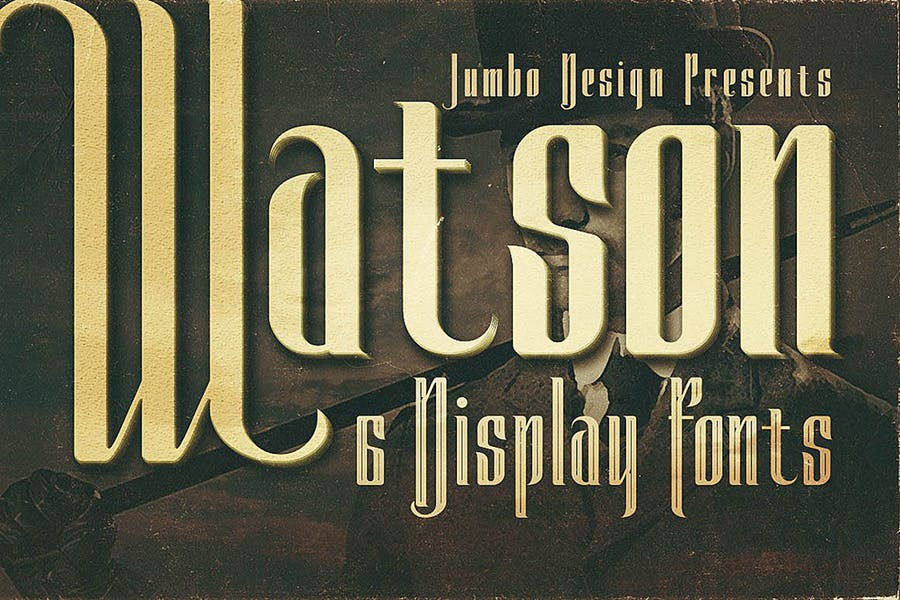
Watson - Vintage Display Font
Watson - Vintage Display Font is perfect for detective mystery branding, vintage investigation logos, classic crime fiction covers, retro detective agency signage, mystery theater posters, vintage police department materials, classic noir film titles, investigative journalism publications, vintage law firm identity, classic mystery game graphics, detective story campaigns, and intriguing storytelling applications.
Watson - Vintage Display Font is exciting because it captures the intellectual elegance and deductive brilliance of classic detective stories with sophisticated letterforms that seem etched by candlelight in Victorian study rooms, perfectly embodying the analytical precision and timeless appeal of legendary detective work and mystery solving.
The Watson - Vintage Display Font family includes investigative variations: Regular, Bold, Light, Condensed, Distressed, and Evidence styles, providing designers with a complete detective typography arsenal to create mysterious compositions that celebrate the art of deduction and the enduring fascination with classic mystery traditions.
The font's expertly crafted letterforms reflect the methodical precision and intellectual sophistication that define great detective work, with classical proportions and refined details that suggest leather-bound case files, magnifying glasses, and the careful attention to detail that solves the most complex mysteries.
Watson - Vintage Display Font excels in creating memorable brand experiences for businesses in investigation, legal services, and mystery entertainment sectors. Its authoritative presence transforms ordinary communications into compelling evidence that resonates with audiences who appreciate intellectual rigor and the timeless appeal of mystery solving.
Professional designers appreciate how Watson - Vintage Display Font maintains authentic vintage detective character while providing exceptional functionality for modern mystery applications. The comprehensive style range ensures optimal performance from intimate case study materials to grand mystery theater displays, maintaining consistent investigative credibility and vintage sophistication.
This remarkable typeface brings instant detective authority to mystery ventures and investigation-focused businesses. From private detective agencies to mystery bookstores, Watson - Vintage Display Font creates lasting impressions that communicate intelligence, reliability, and the methodical excellence that defines great detective work and mystery solving.